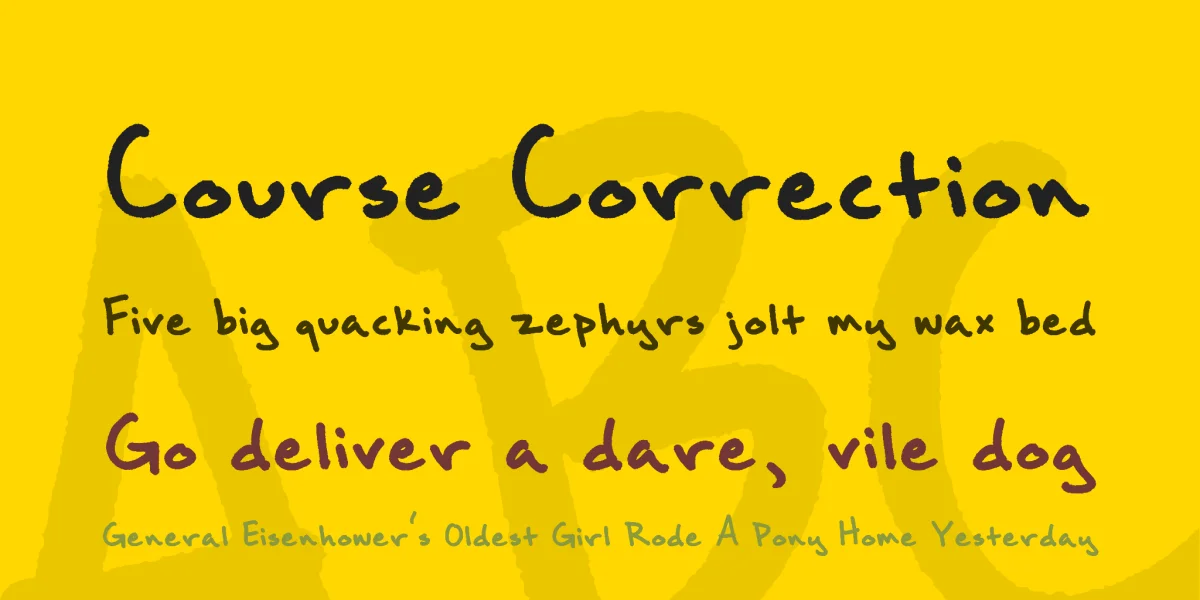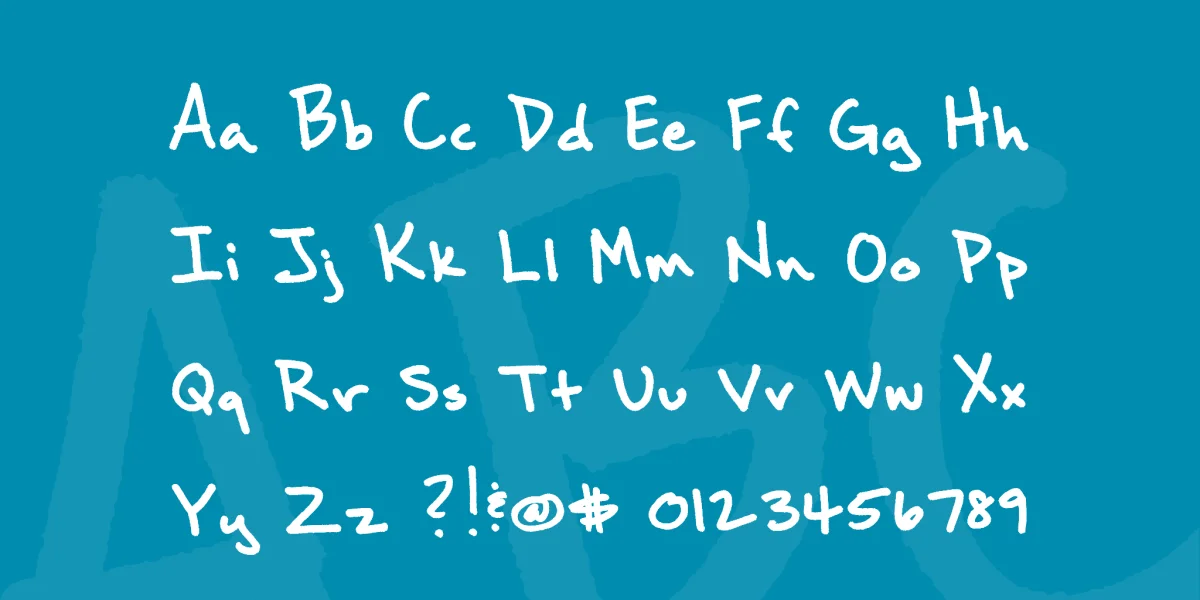
My mom used to write all the kids names on our lunch bags... i liked the look, but i don't miss it... it comes with a full upper and lower case alphabet, numerals, and punctuation...